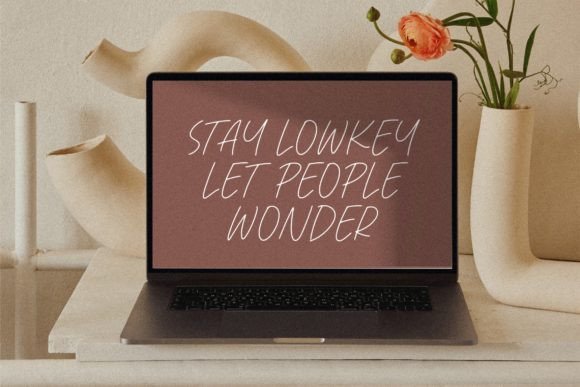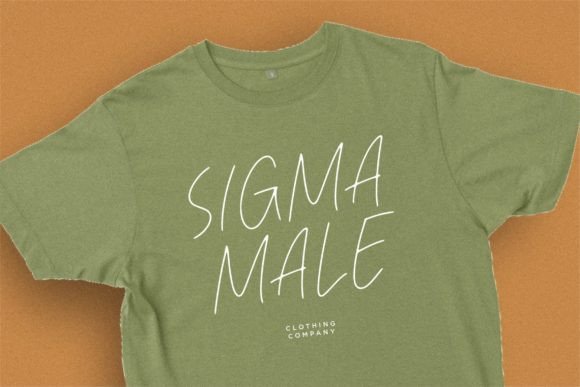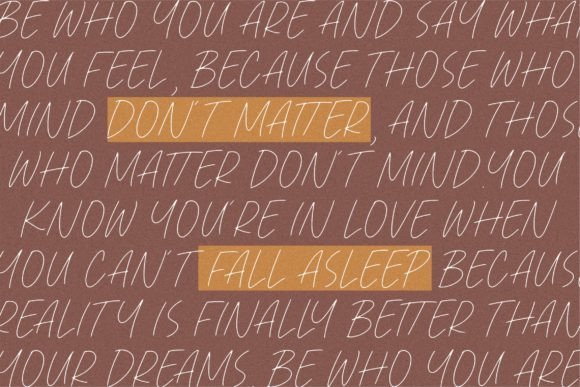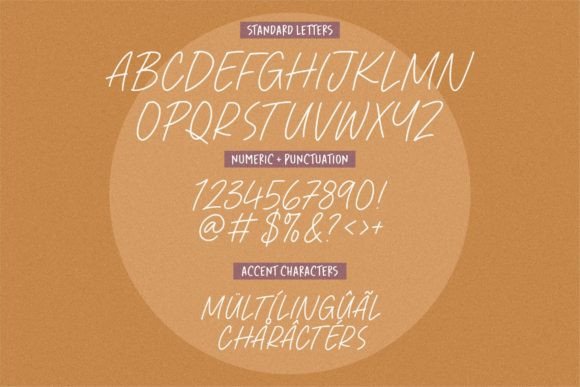
Introduction to Pierce Jackson Font
Have you ever been in the midst of a creative project, staring blankly at a blank page or screen, desperately searching for that perfect font to bring your idea to life? For designers and crafters alike, finding the right font can be the difference between a mediocre and an exceptional result. And that’s exactly where the Pierce Jackson Font comes in – a striking all-caps handwritten font that’s sure to elevate your creative projects.
Whether you’re working on a digital design, a presentation, or a handmade craft, the Pierce Jackson Font is an invaluable resource that’s sure to become your go-to choice. Its high-quality design and transparent background make it perfect for a wide range of applications, from greeting cards to social media graphics. And the best part? It’s available for free download, making it an accessible and affordable design resource for designers and crafters of all levels.
Pierce Jackson Font
- High-quality design resource ideal for creative projects, offering a unique and stylish touch.
- Features a transparent background, allowing for seamless integration into your design without any visual distractions.
- Comes in a single weight, making it perfect for titles, headings, and other prominent design elements.
Honest Review: Pierce Jackson Font
I recently had the chance to work with the Pierce Jackson Font, and I must say, it’s been a great addition to my design resources. This font has a unique, high-quality aesthetic that’s perfect for creative projects where you need something a bit edgy.
What works well: ✨ The font’s transparent background allows for seamless integration with any background image, making it a versatile design choice. The font also comes in a range of weights and styles, giving you plenty of options to suit your project’s needs.
Here are some of the font’s key features:
- High-quality design for a unique aesthetic
- Range of weights and styles for flexibility
Overall, I’m impressed with the Pierce Jackson Font’s design and flexibility. It’s a great choice for creative projects where you need a high-quality, unique font. Just be sure to review the licensing terms before using it in commercial projects.
Pierce Jackson Font
The Pierce Jackson Font is a versatile and high-quality design resource perfect for any creative project. With a transparent background, this font is ideal for adding a touch of elegance to your designs.
For the best results, use the Pierce Jackson Font in conjunction with other high-quality design elements, such as graphics and images. Experiment with different font sizes, colors, and styles to create a unique and eye-catching design.
The Pierce Jackson Font is perfect for a variety of creative projects, including business cards, brochures, and marketing materials. It’s also great for use in digital designs, such as website headers and social media graphics.